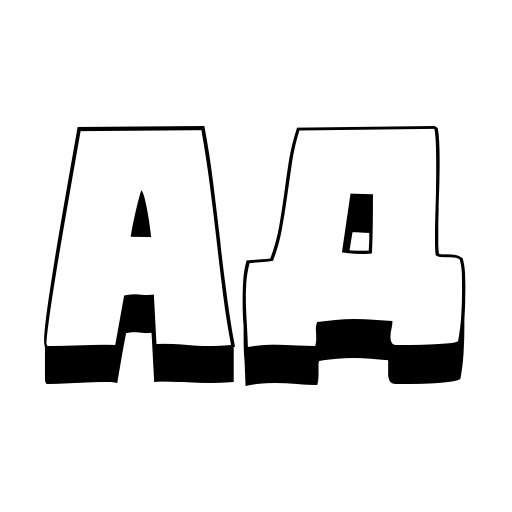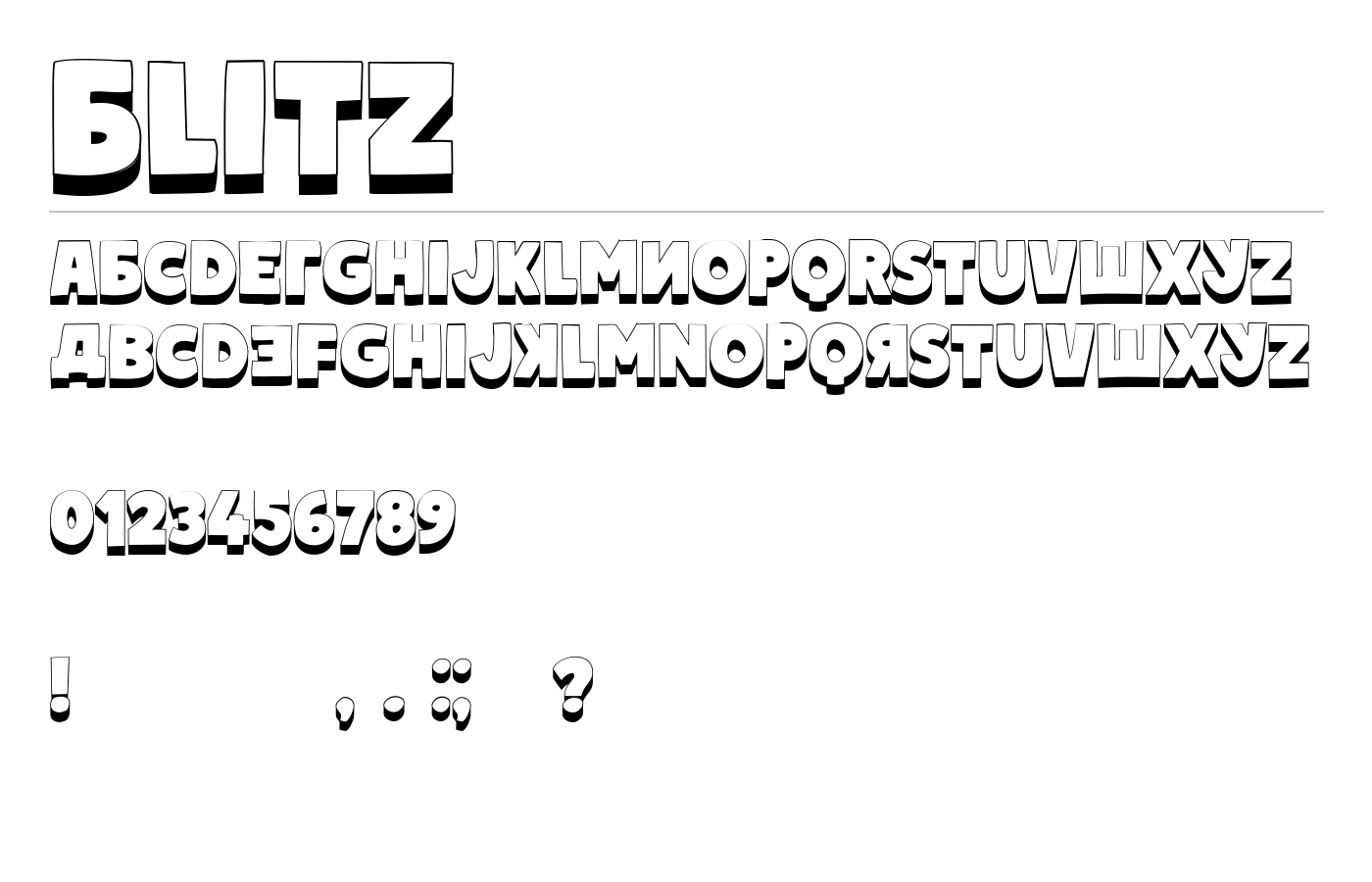
Blitz is a bold, playful sans serif font with a strong 3D shadow effect, giving it a lively and cartoonish character. Its thick letterforms and uniform width make it perfect for eye-catching headlines, posters, and creative branding that needs a fun and energetic vibe. This font works well for projects aimed at younger audiences or those seeking a dynamic, informal style.
Blitz Font
About Blitz Font
| Font family | Blitz Font |